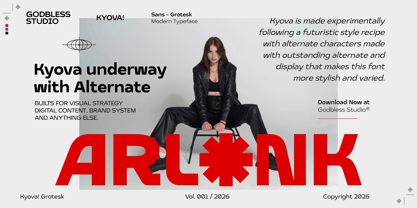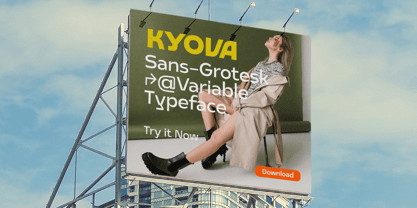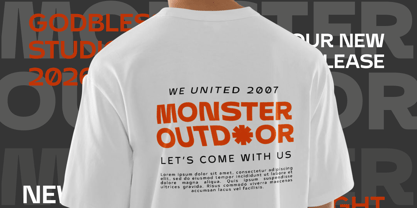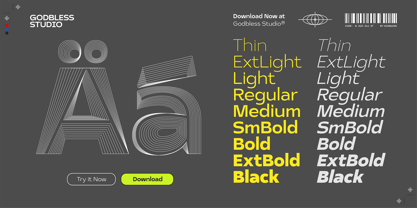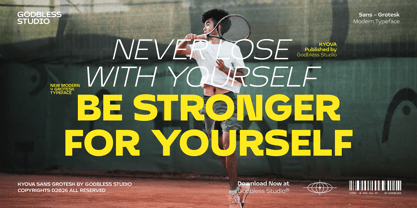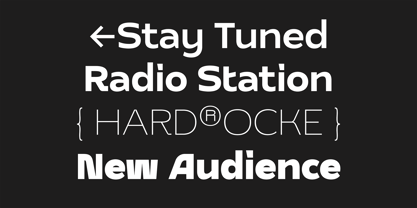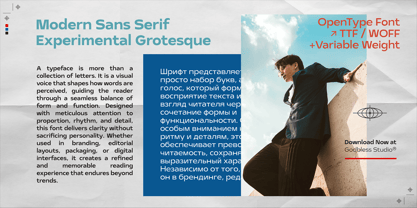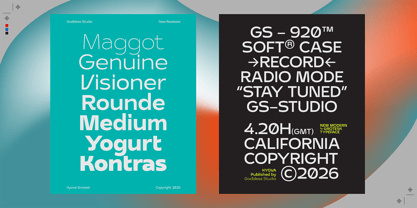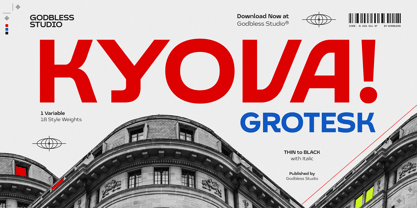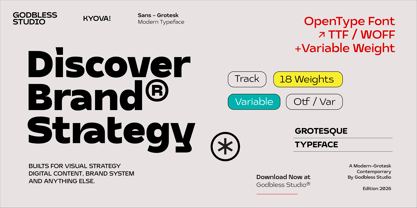
Kyova Grotesk
by Godbless Studio
The Kyova Grotesk Font Family was designed by Heri Juniawan and published by Godbless Studio. Kyova Grotesk contains 18 styles and family package options. More about this family
Introducing Kyova Grotesk – Where Experimental Meets Elegance
Say hello to Kyova Grotesk, a modern sans-serif typeface that breaks boundaries while keeping things stylish. Designed to impress, this experimental display font blends clean geometry with striking alternate characters, offering a fresh and unique visual identity for any creative project.
Whether you're crafting bold headlines or sophisticated brand visuals, Kyova Grotesk is your new go-to font—versatile, elegant, and unapologetically distinct.
Why Choose Kyova Grotesk?
• 9 Weights, 18 Styles – From delicate Thin to powerful Black, plus matching italics for all styles.
• Variable Font Included – Total control over weight and style in a single file. Smooth. Responsive. Future-proof.
• OpenType Features Galore – Including discretionary ligatures, stylistic alternates, fractions, case-sensitive forms, and more.
• Multilingual Support – Covering a wide range of Latin-based languages so your designs can speak globally.
• Alternate Characters – Experiment with alternate letterforms for added personality and flexibility.
Perfect For:
• Poster Design
• Editorial & Magazine Layouts
• Bold Headlines
• Logos & Brand Identity
• Product Packaging
• Event Invitations & Cards
• Digital Interfaces
• Modern Advertising Campaigns
• Album Covers & Social Media Graphics
Whether you're a graphic designer, art director, or creative entrepreneur, Kyova Grotesk empowers you to express bold ideas with precision and flair. This is more than just a typeface—it’s a creative tool that adapts to your vision.
Designers: Heri Juniawan
Foundry: Godbless Studio